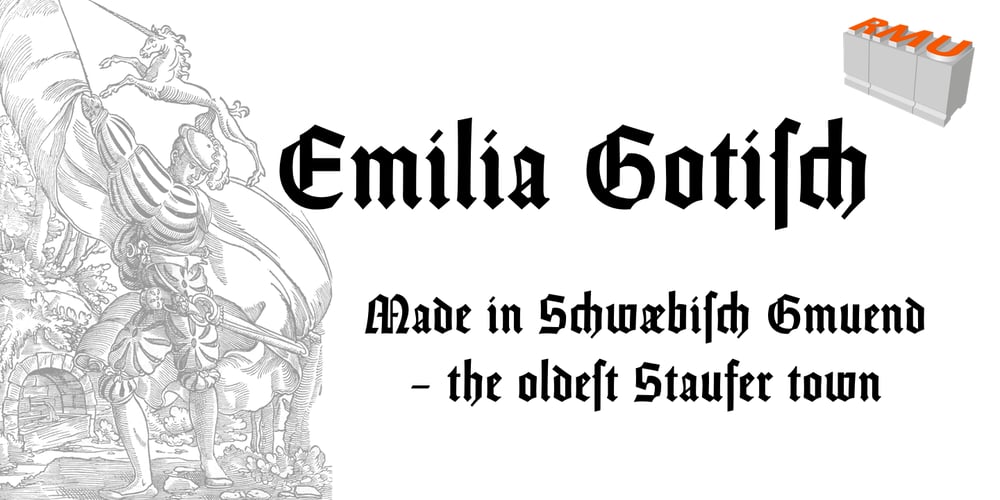
Emilia Gotisch Font Family was designed by Ralph M. Unger and published by RMU. Emilia Gotisch contains 1 styles and family package options. Weiss’ gothic-style blackletter font completely redrawn and redesigned for present-day use. This font contains a bunch of useful ligatures, and by typing ‘N’, ‘o’ and period plus activating the OT feature Ordinals you get an oldstyle numbersign. As usual in my blackletter fonts, the # key is occupied by the round s.